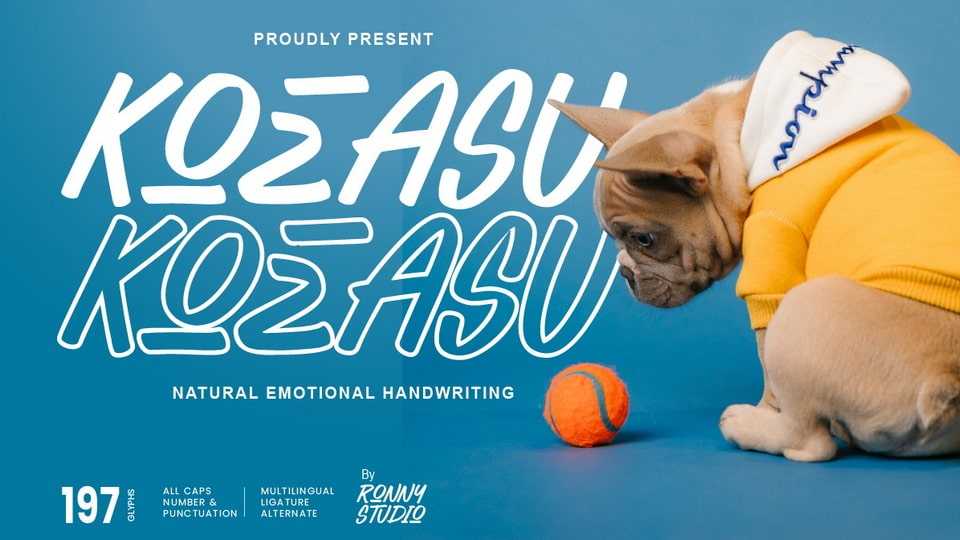
Download Koeasu font, an emotional and fun handwritten all-caps typeface. Koeasu font is absolutely perfect for quotes, products, logos, packaging, comics, magazines, posters, events, social media posts, books and more.